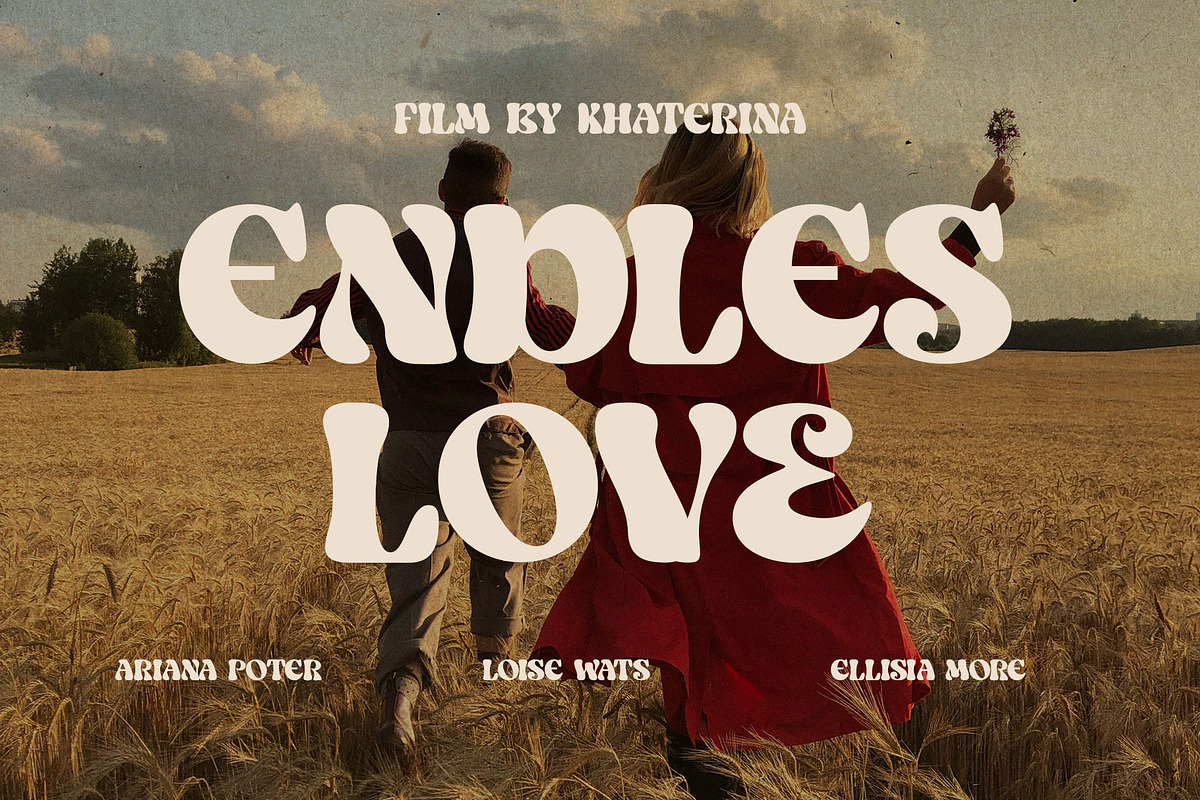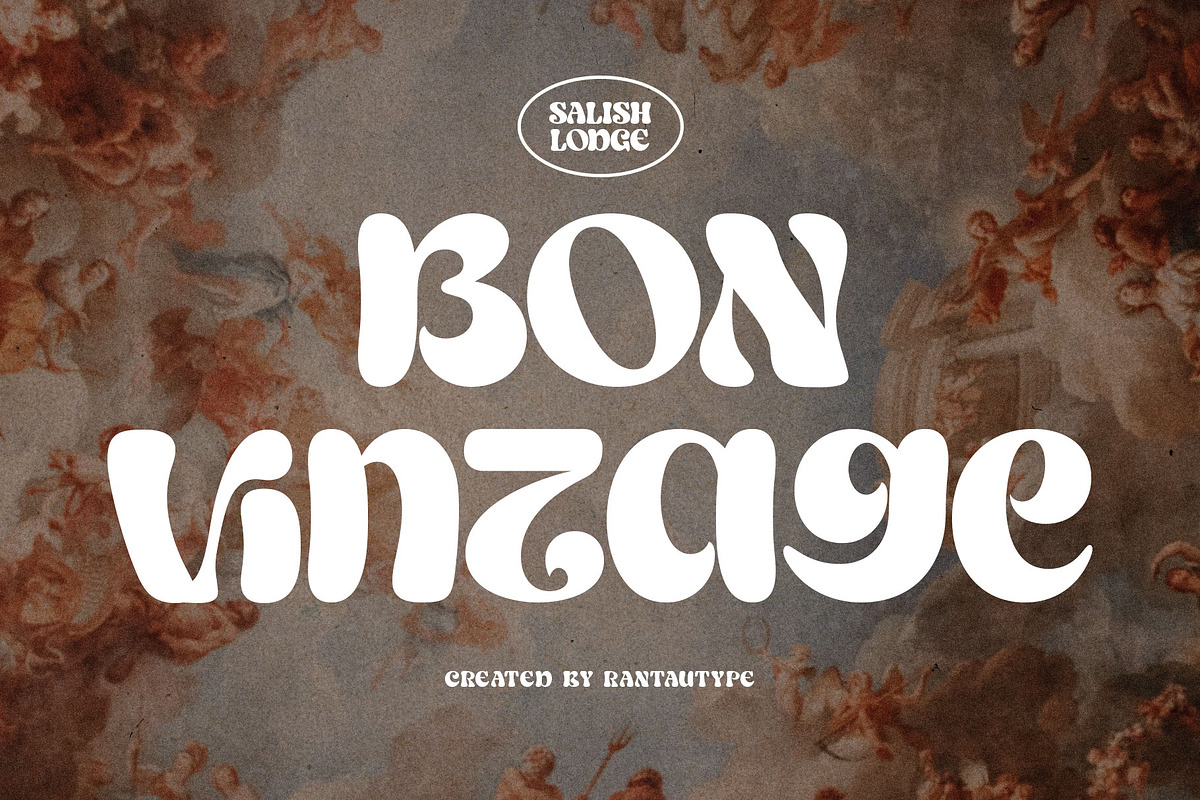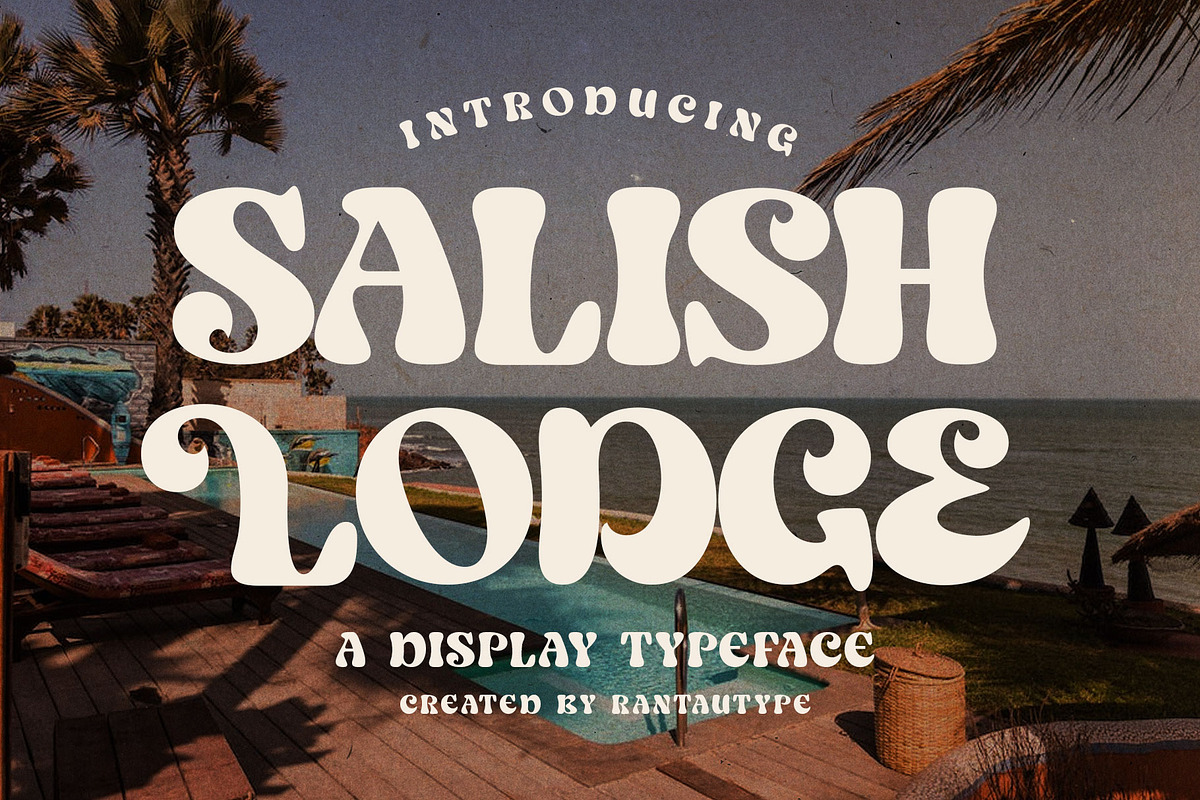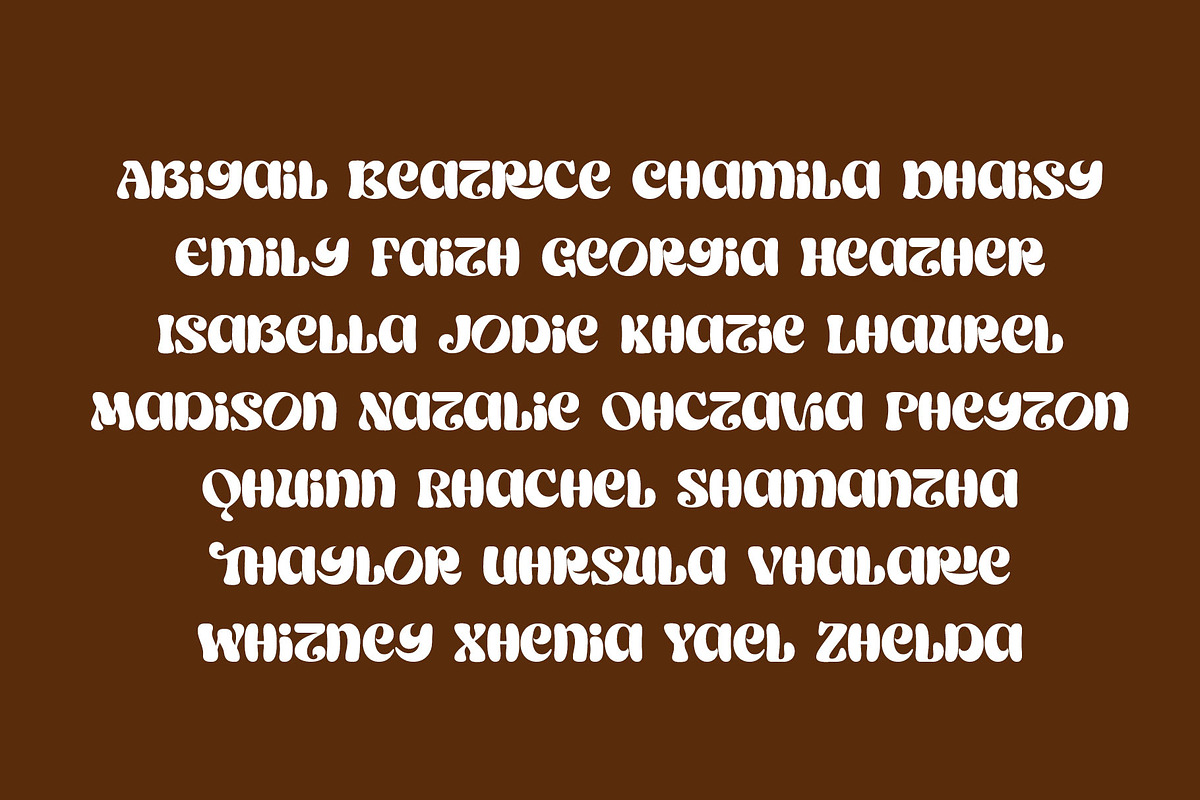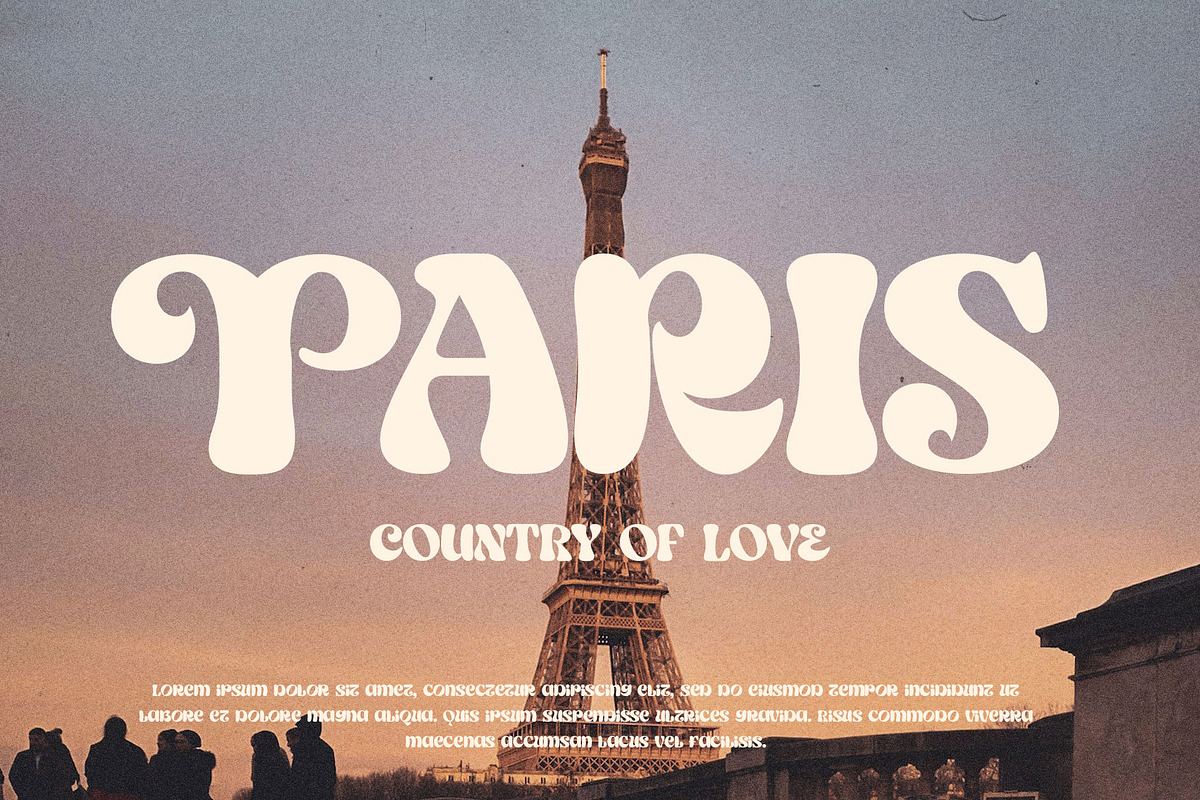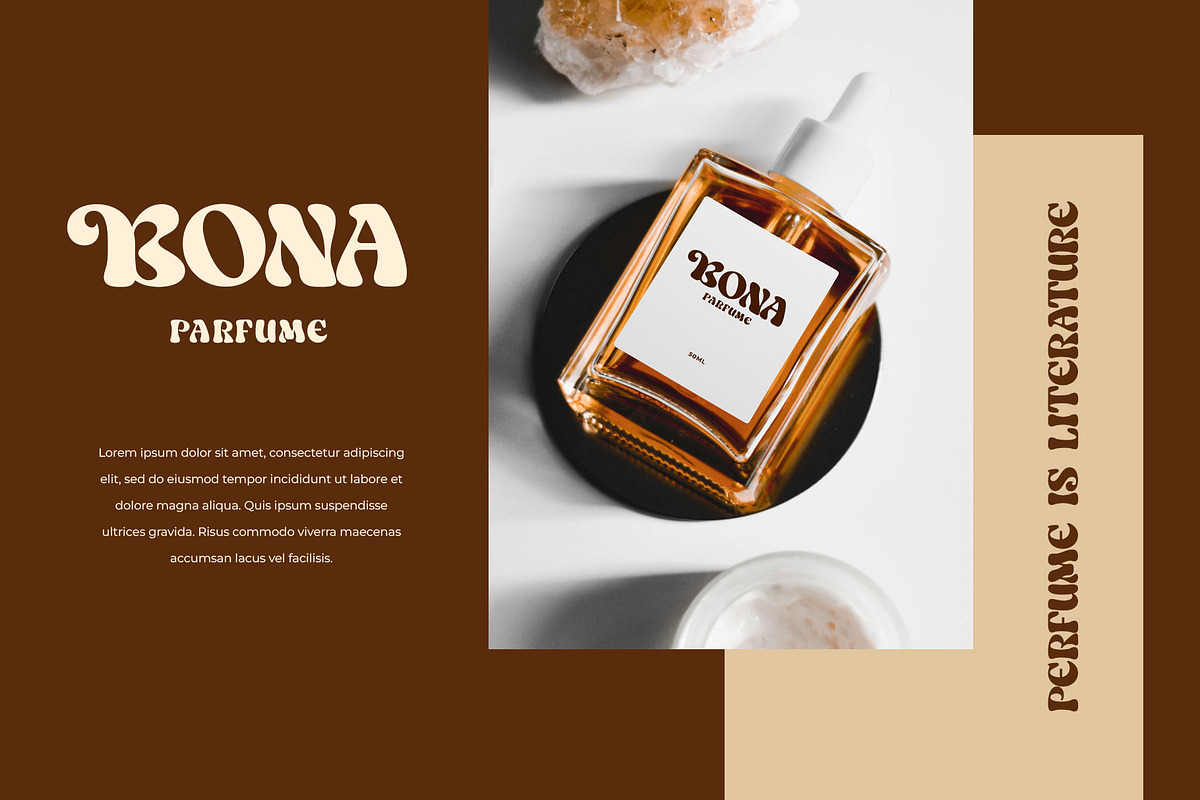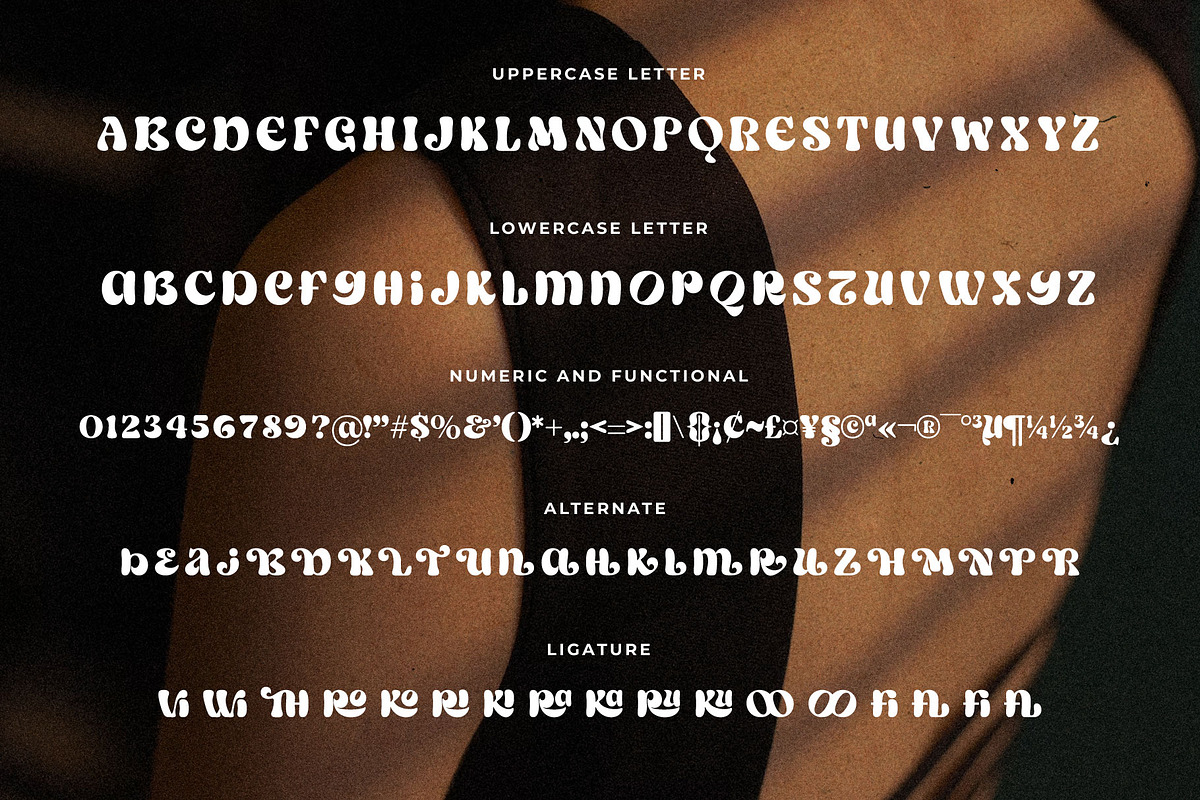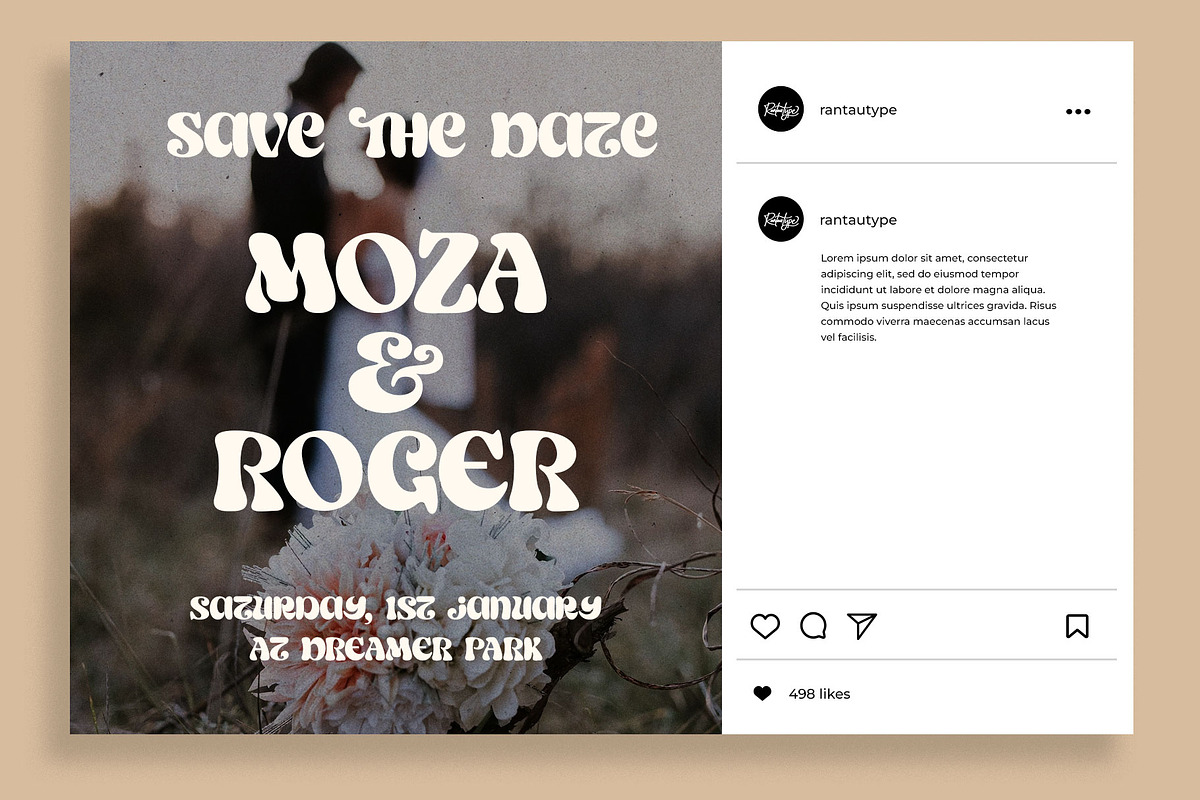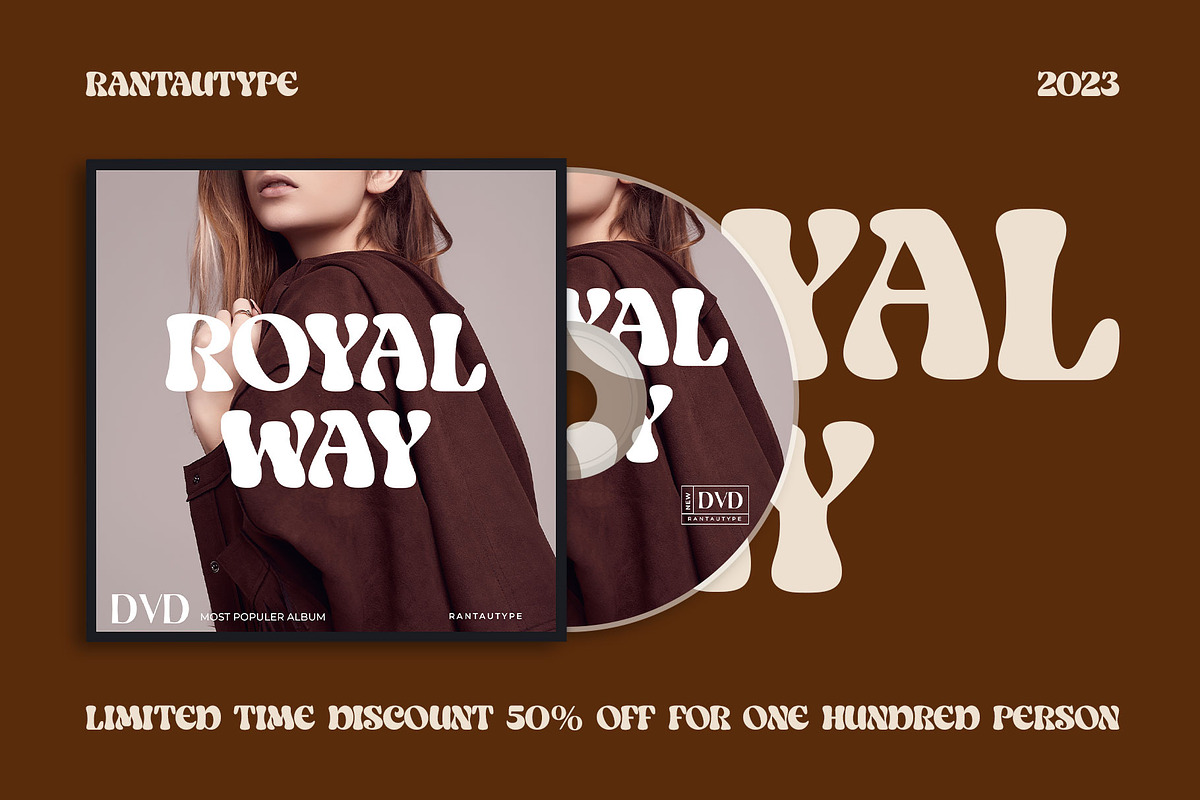
Salish Lodge Display Typeface
Hi Ladies and Gentleman ! Proudly present display typeface “Salish Lodge”, by rantautype.
Salish Lodge is a display font that soft bold curve make it look Unique, fun, modern, and versatile serif Font. Come with more alternate and ligature you can mix to create a more stunning display. Salish Lodge come with multilingual accent support.
Salish Lodge separate in reguler and italic, is a beautiful choice for any creative endeavor, creating fun, modern, chic, lifestyle design such as logos, title, cover, branding, display and magazine, and more. Now you have can choice Salish Lodge to elevate you desaign or branding.
- Standar character A-Z and a-z
- Alternate and Ligature